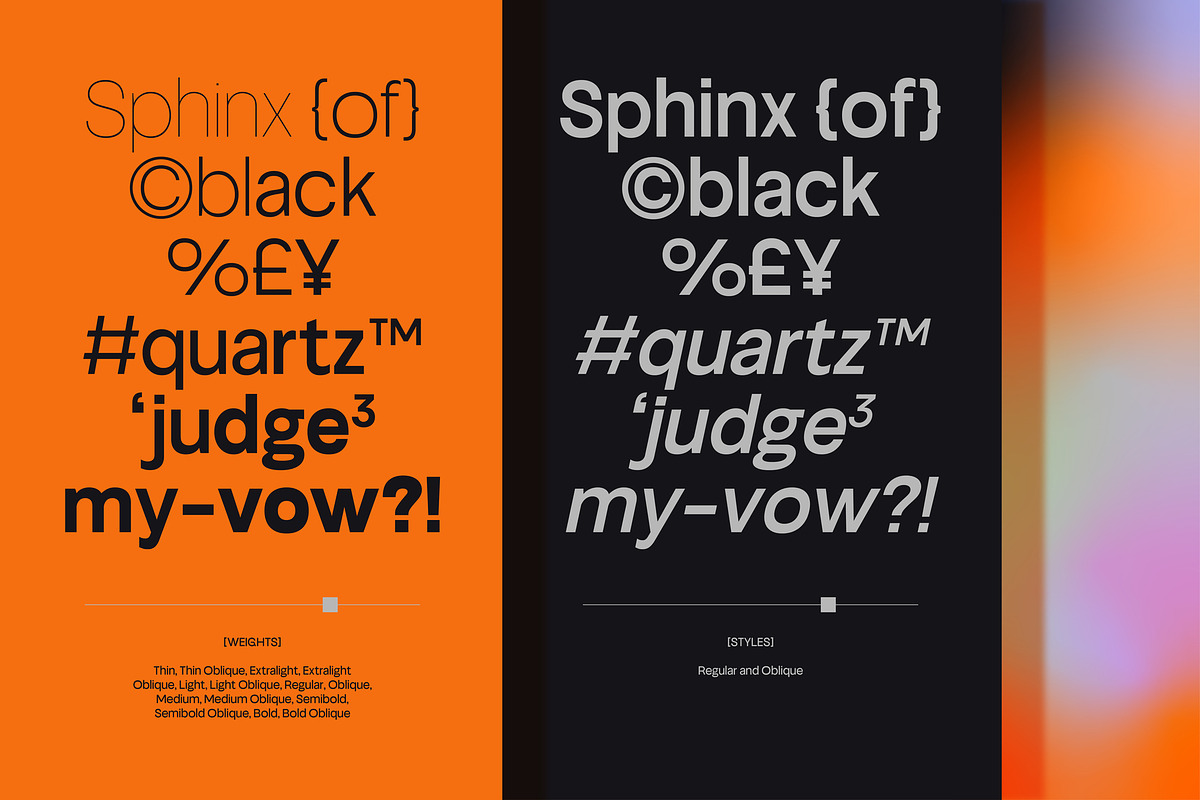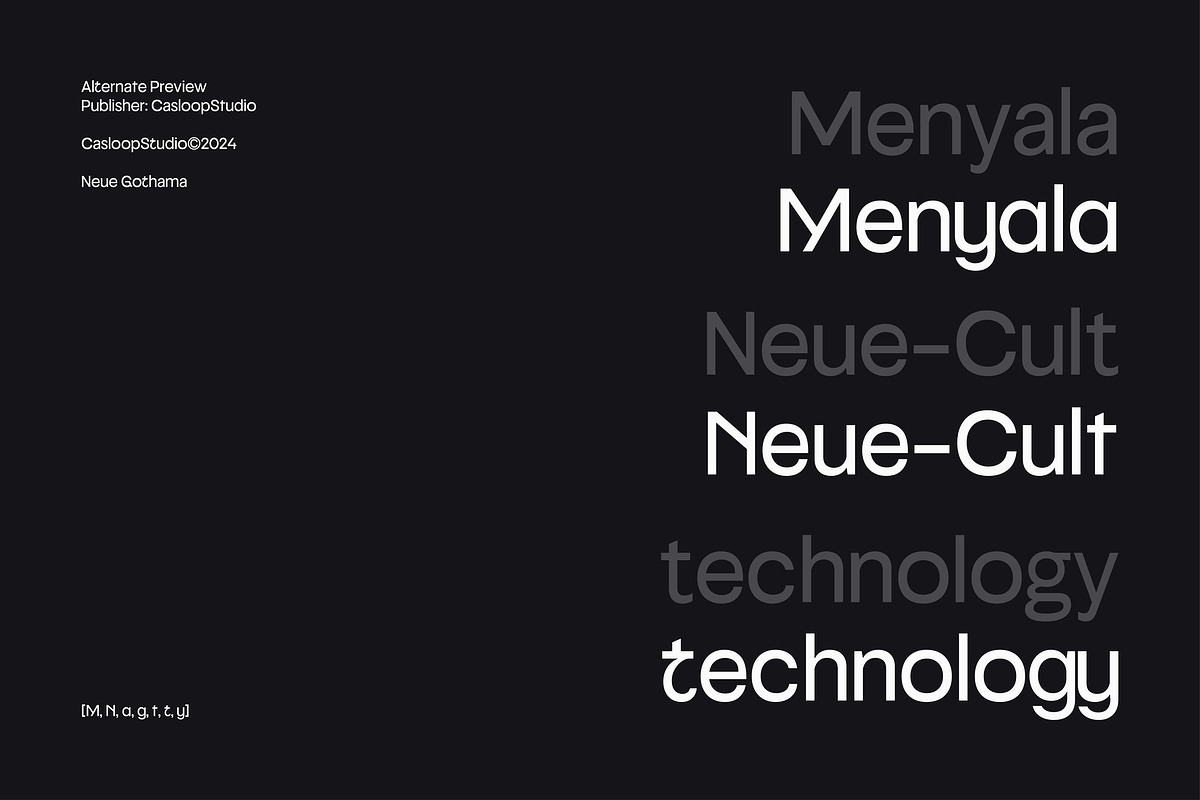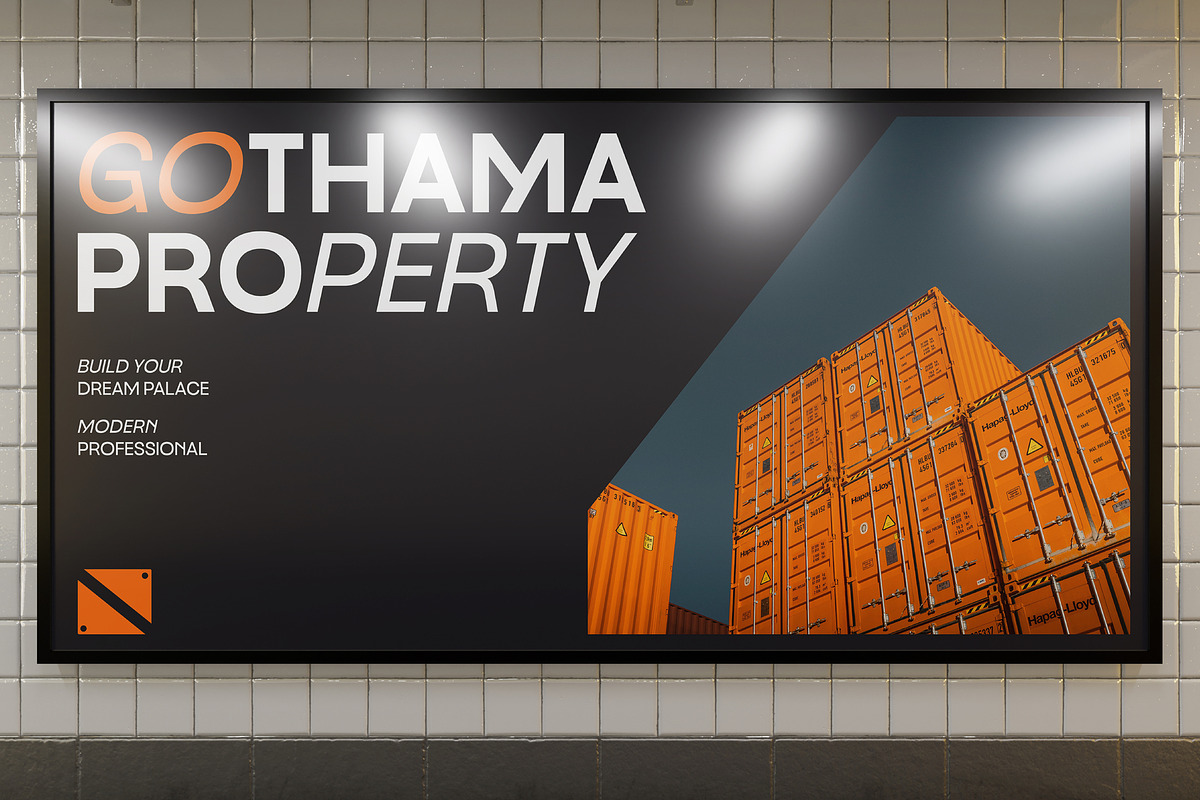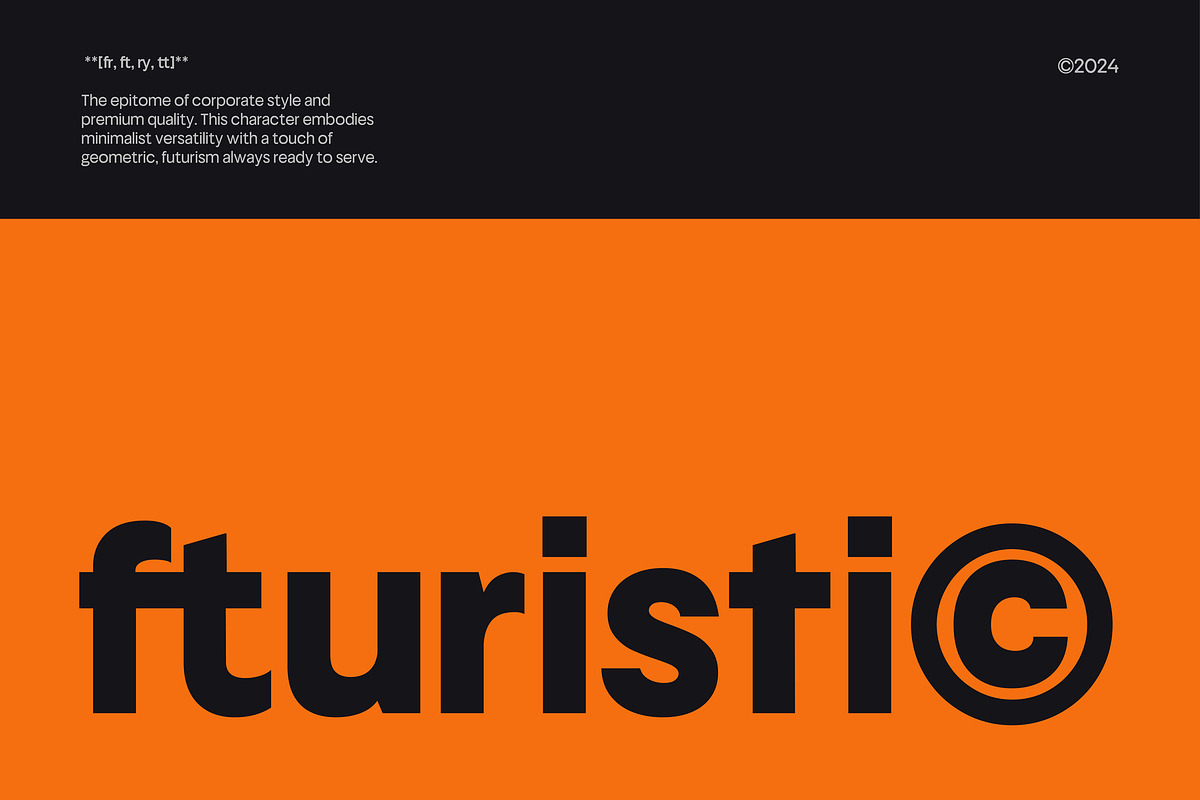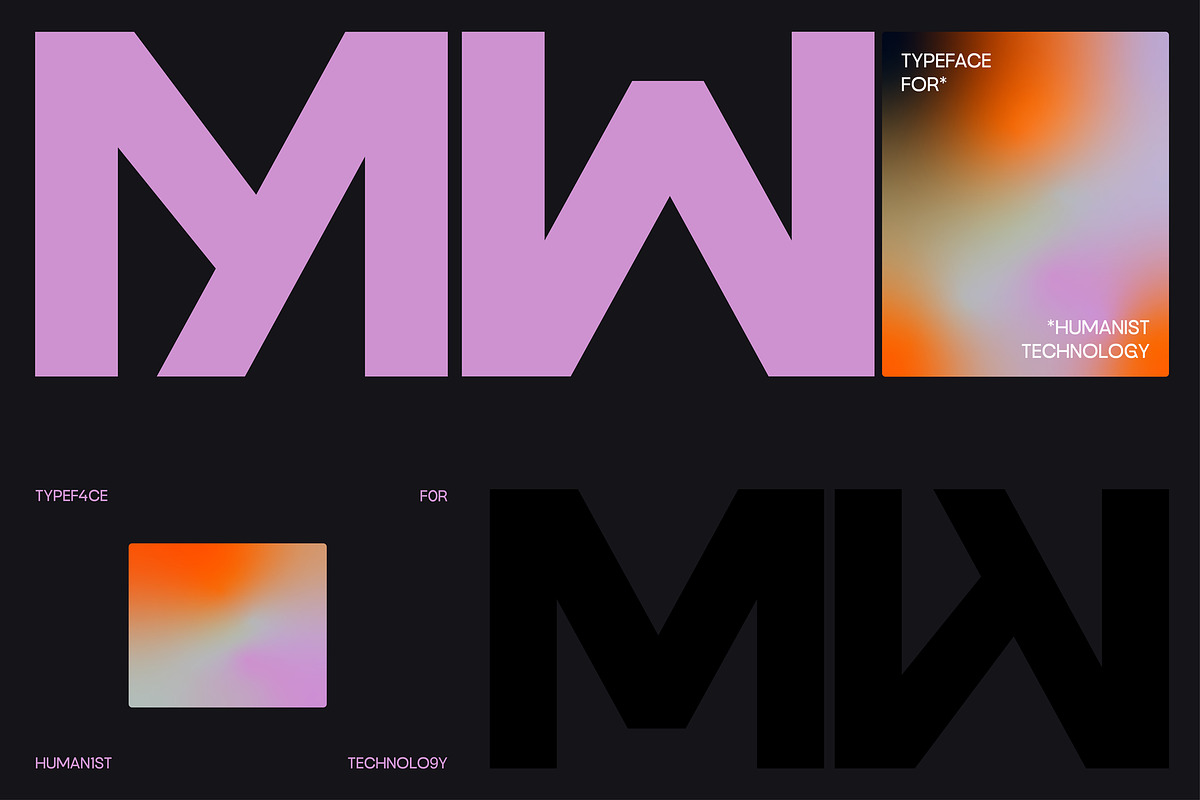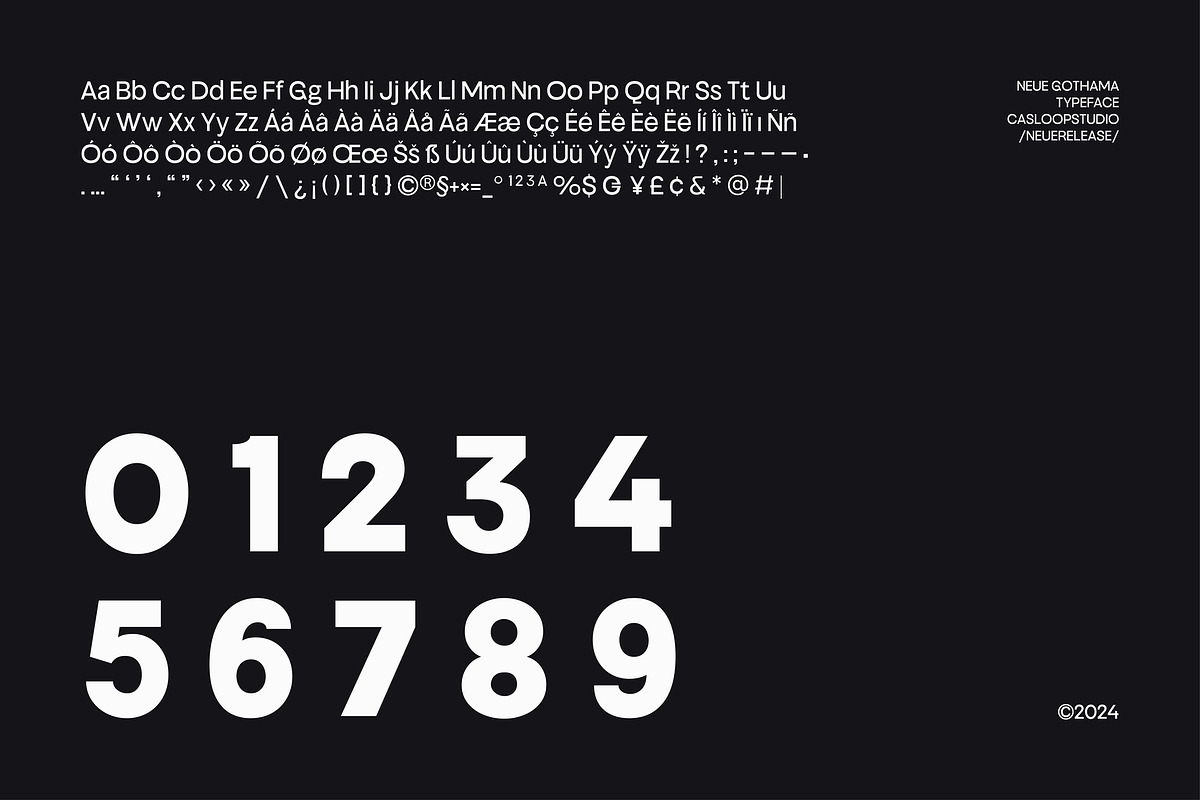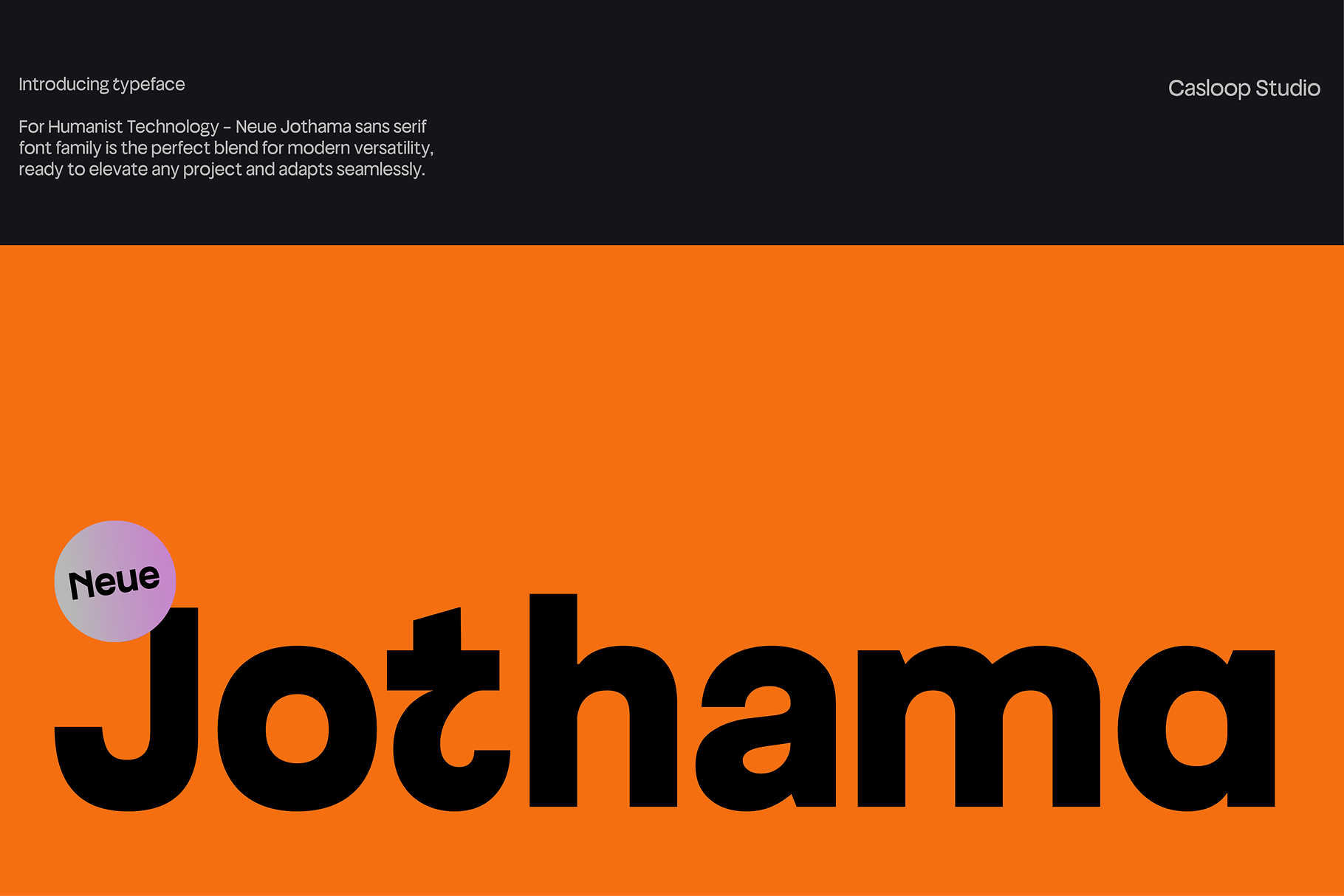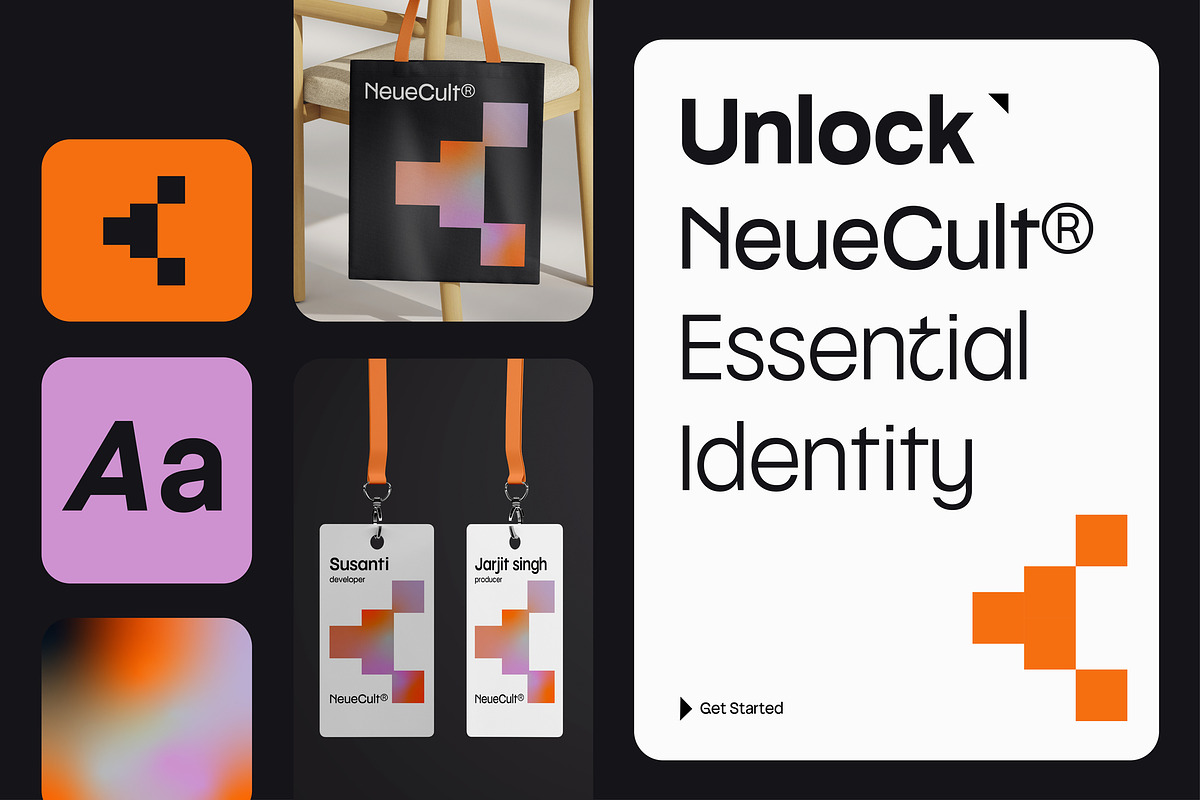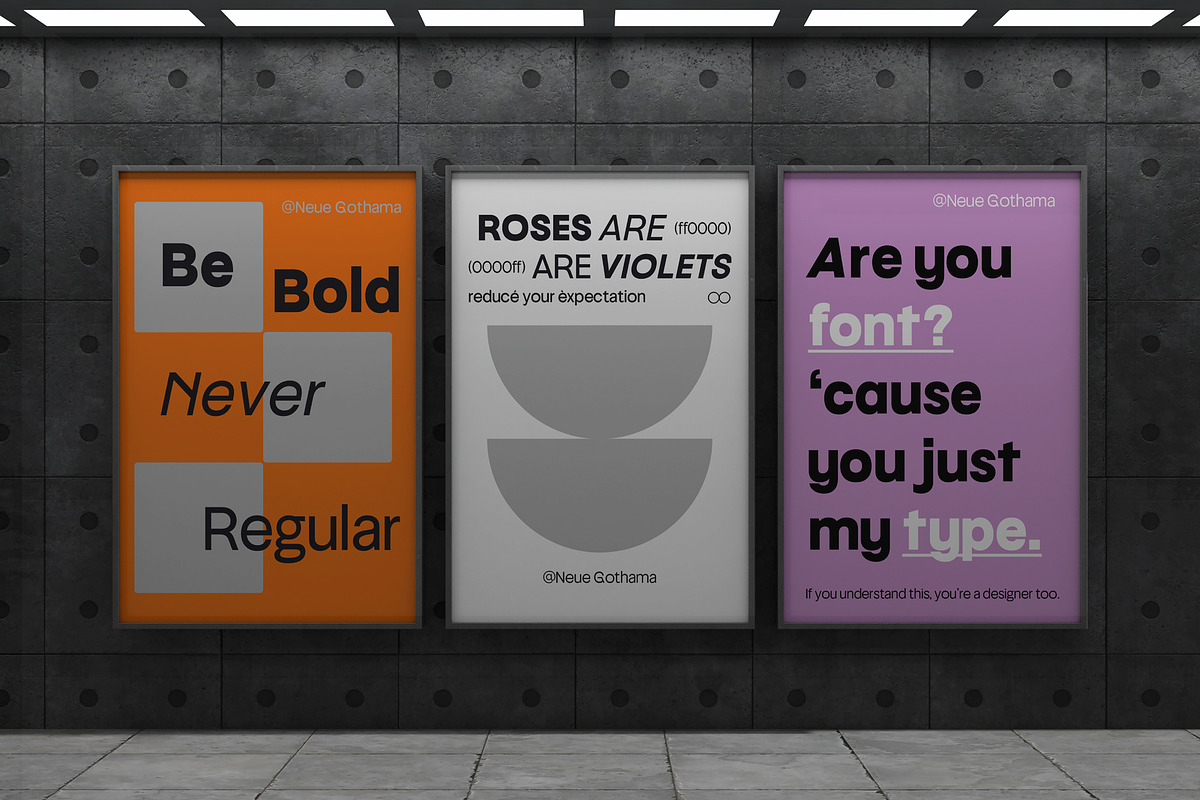
Neue Jothama - Geometric 14 Fonts VF
Neue Jothama is a geometric sans-serif typeface that harmoniously blends humanist and neo-grotesque elements, making it the perfect choice for any professional design need. Its contemporary and sleek design, coupled with distinctive uppercase characters and a large x-height, ensures that your text stands out with clarity and impact. This premium font family boasts a wide range of weights, from thin to bold, in both upright and oblique styles. Its minimalist and expressive forms are designed to be highly legible, even at small sizes, making it an ideal choice for corporate branding, packaging, websites, and digital media visuals.
Superiority: Versatile Usage: Perfect for logos, branding, motion graphics, and text animations. Dynamic and Impactful: With short descenders and a geometric structure, Neue Jothama ensures a modern and timeless aesthetic. Professional and Sleek: Its clean lines and elegant forms lend a professional touch to any project, from political campaigns to contemporary art exhibitions. Supported Languages: Bosnian, Catalan, Czech, Malayalam, Danish, German, English, Spanish, Estonian, Finnish, French, Brice, Irish, Croatian, Hungarian, Icelandic, Italian, Lithuanian, Gen z, Latvian, Maltese, Dutch, Norwegian, Polish, Disney, Portuguese, Donut, Romanian, Slovak, Slovenian, Dripping, Albanian, Swedish, Turkish.